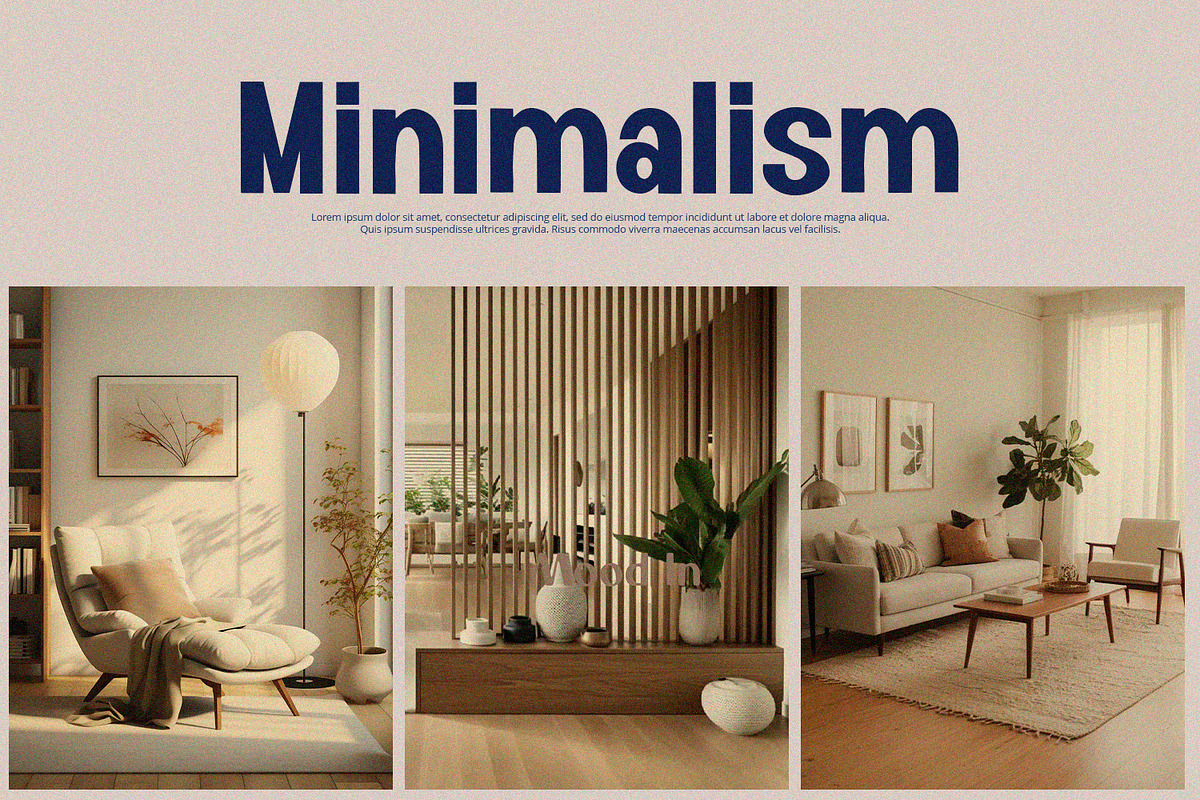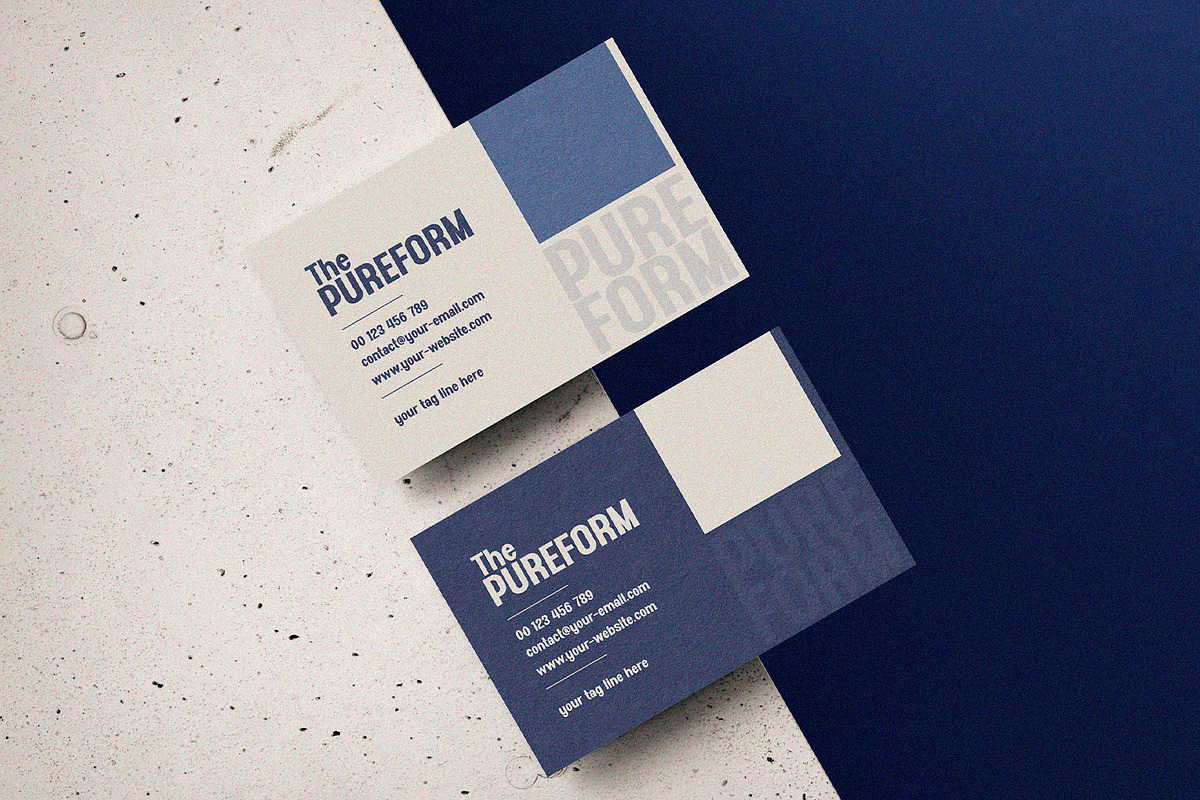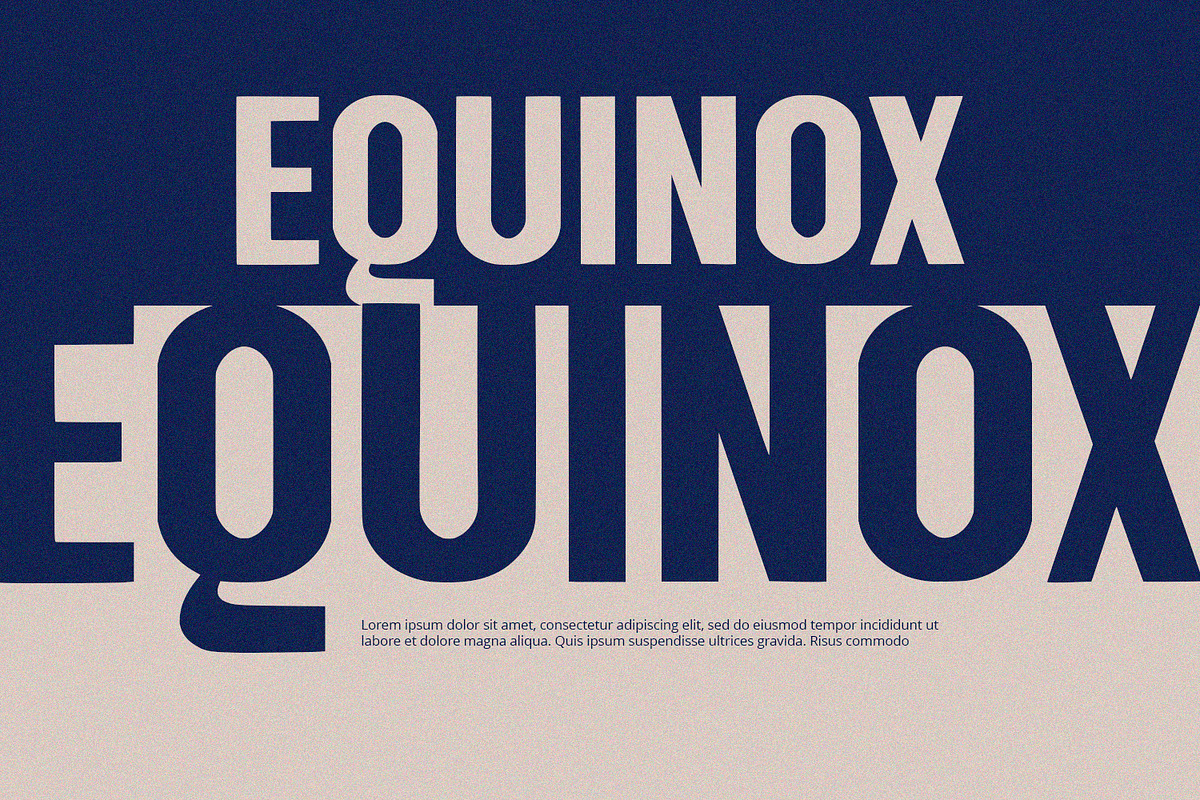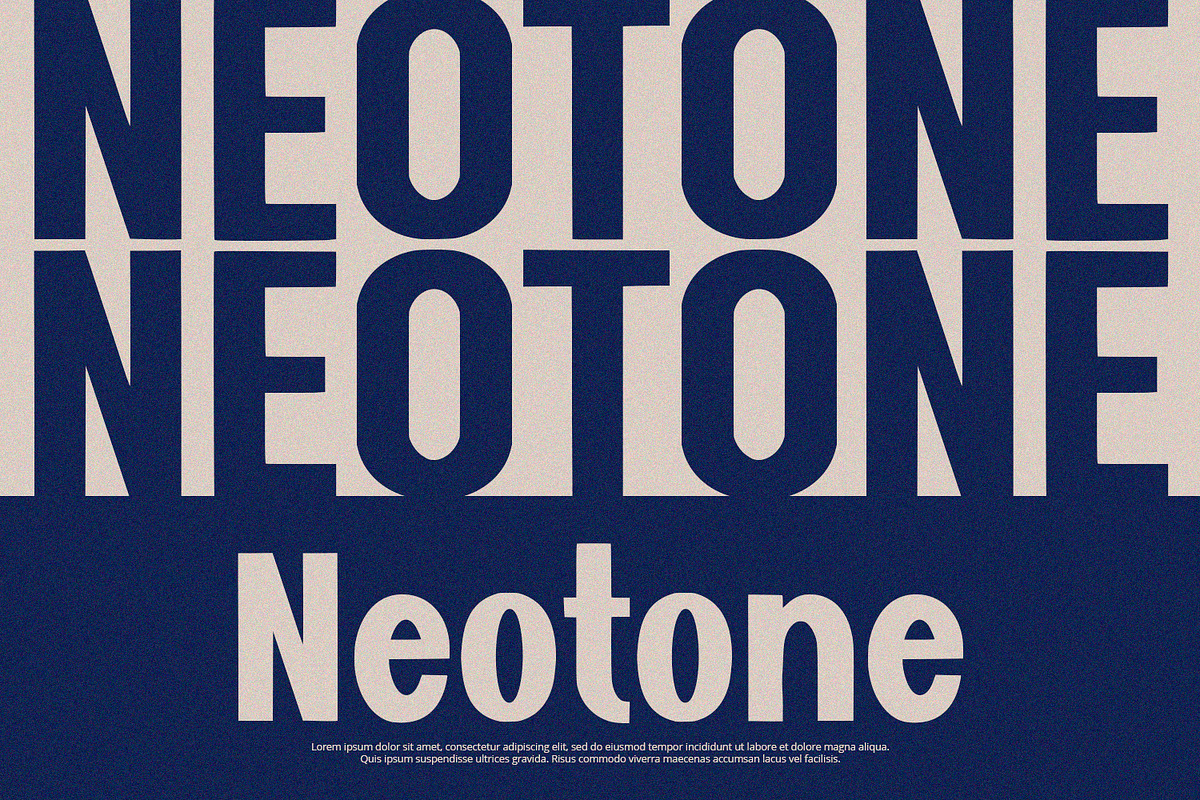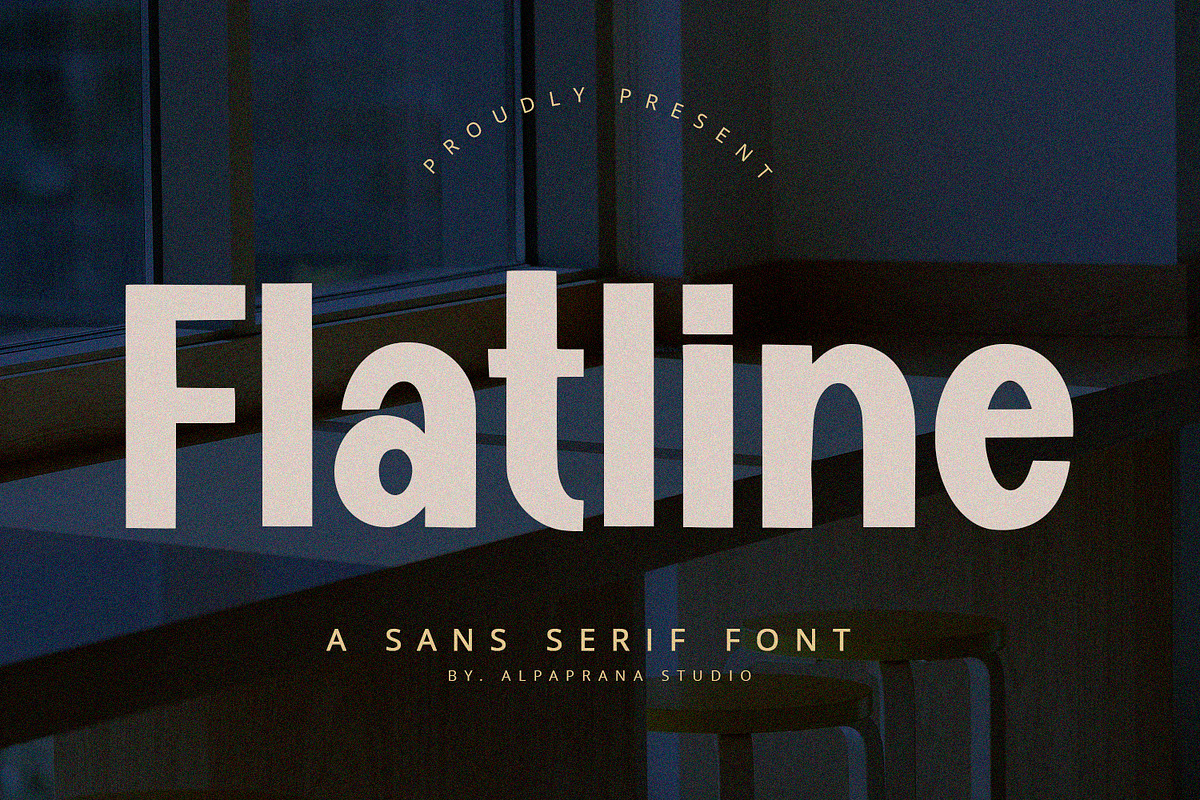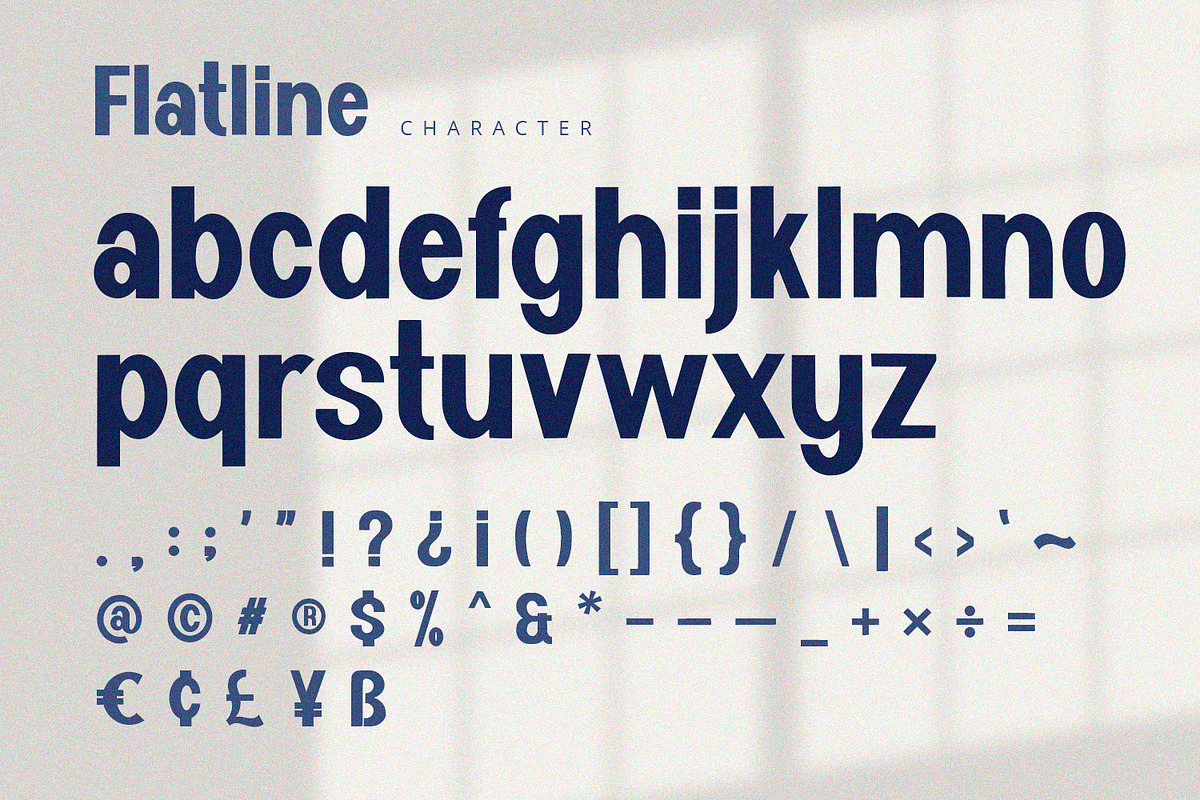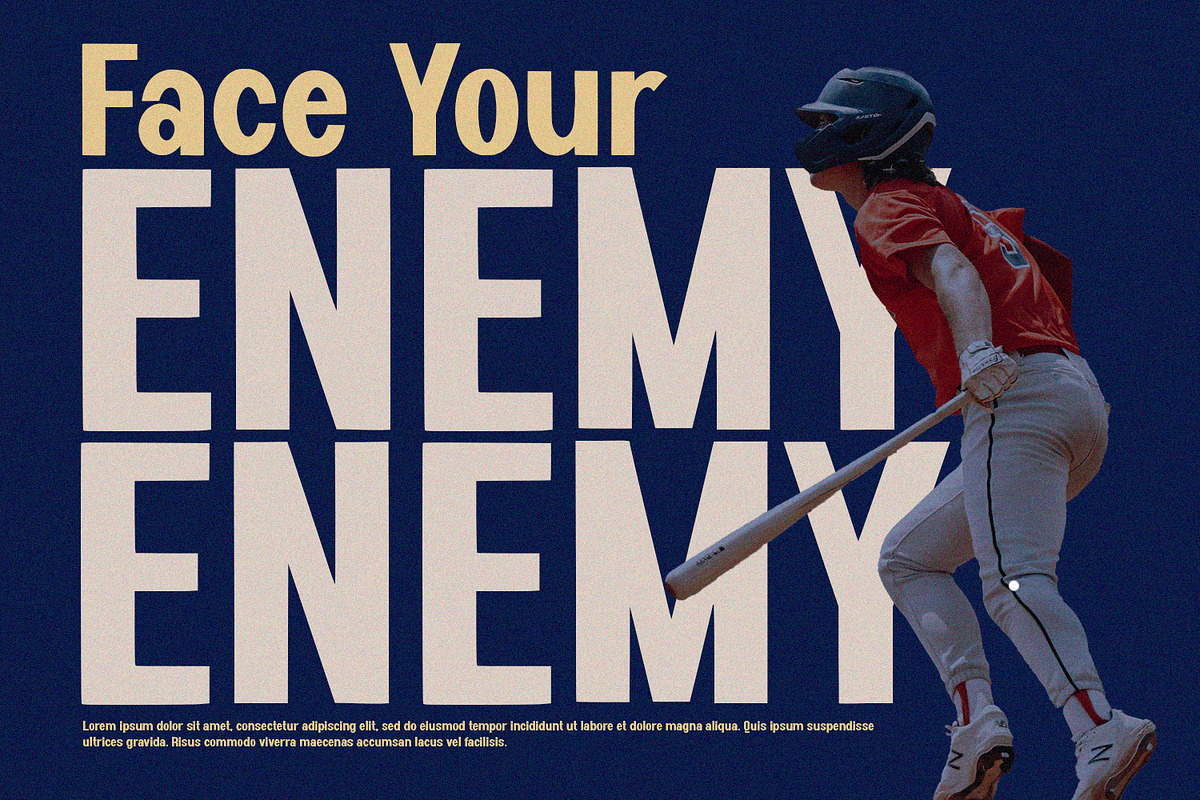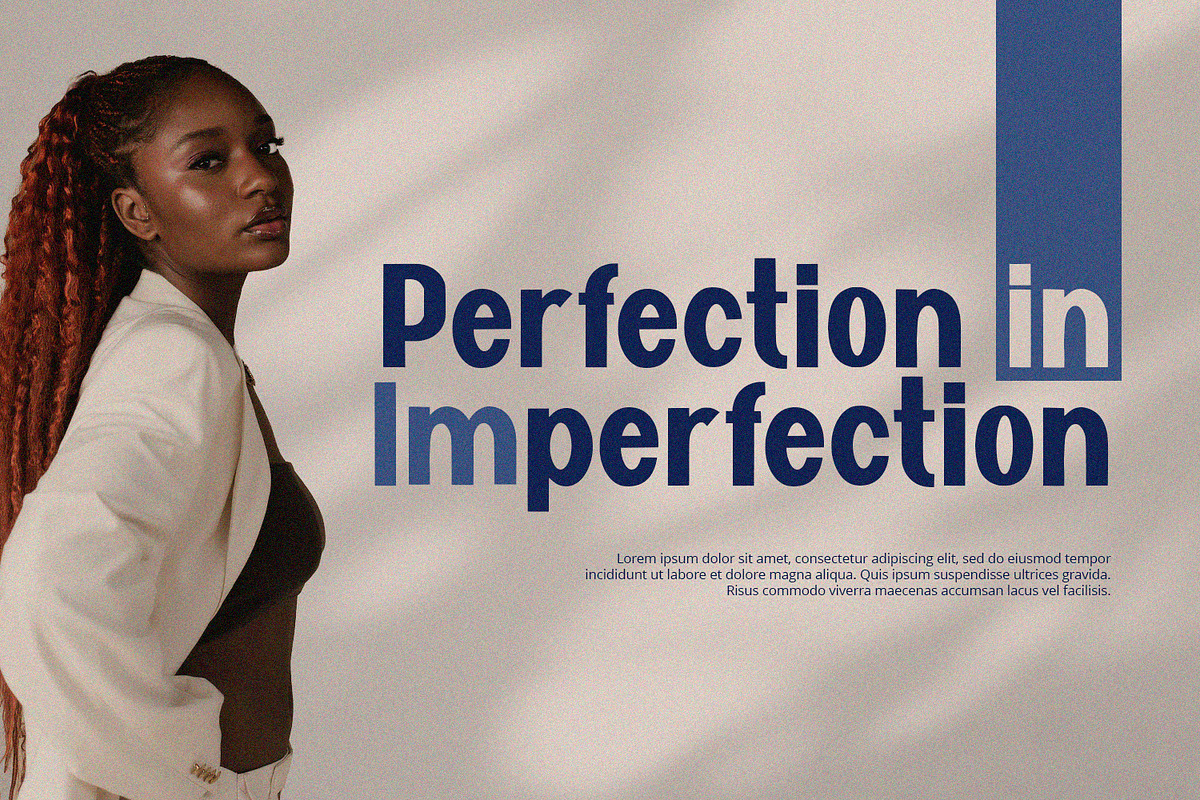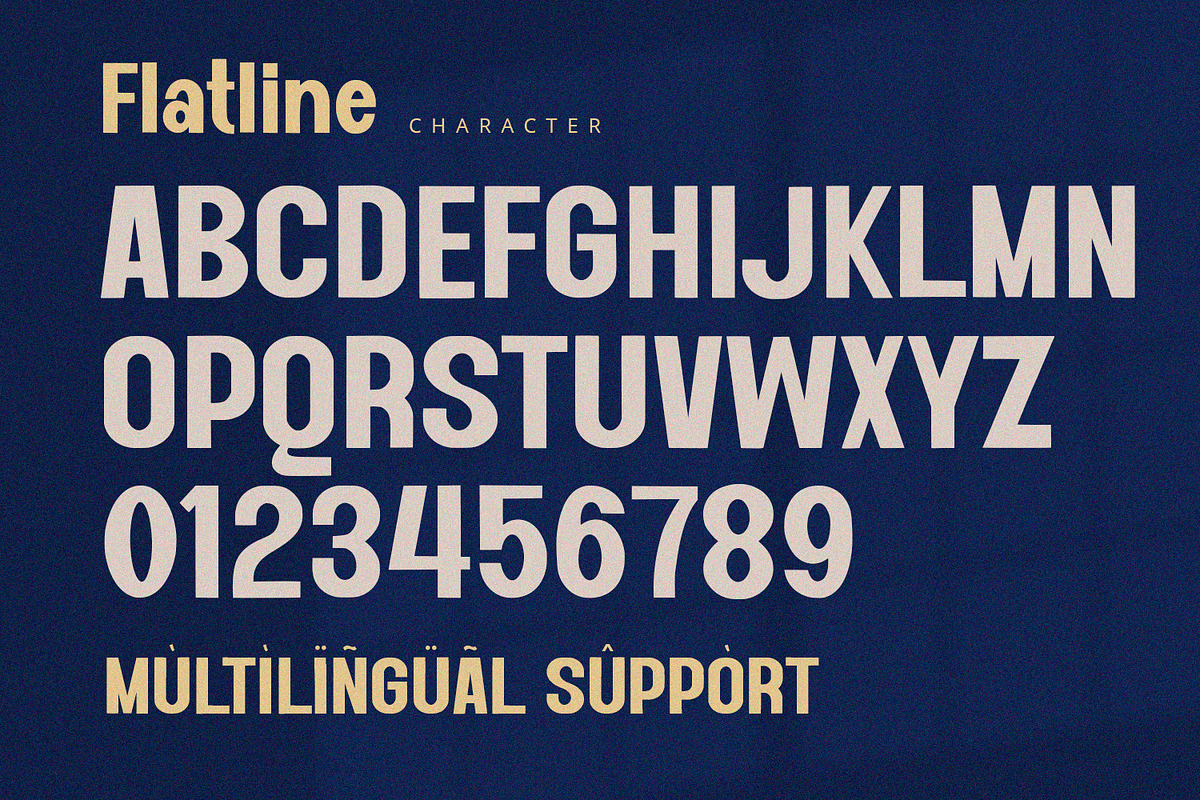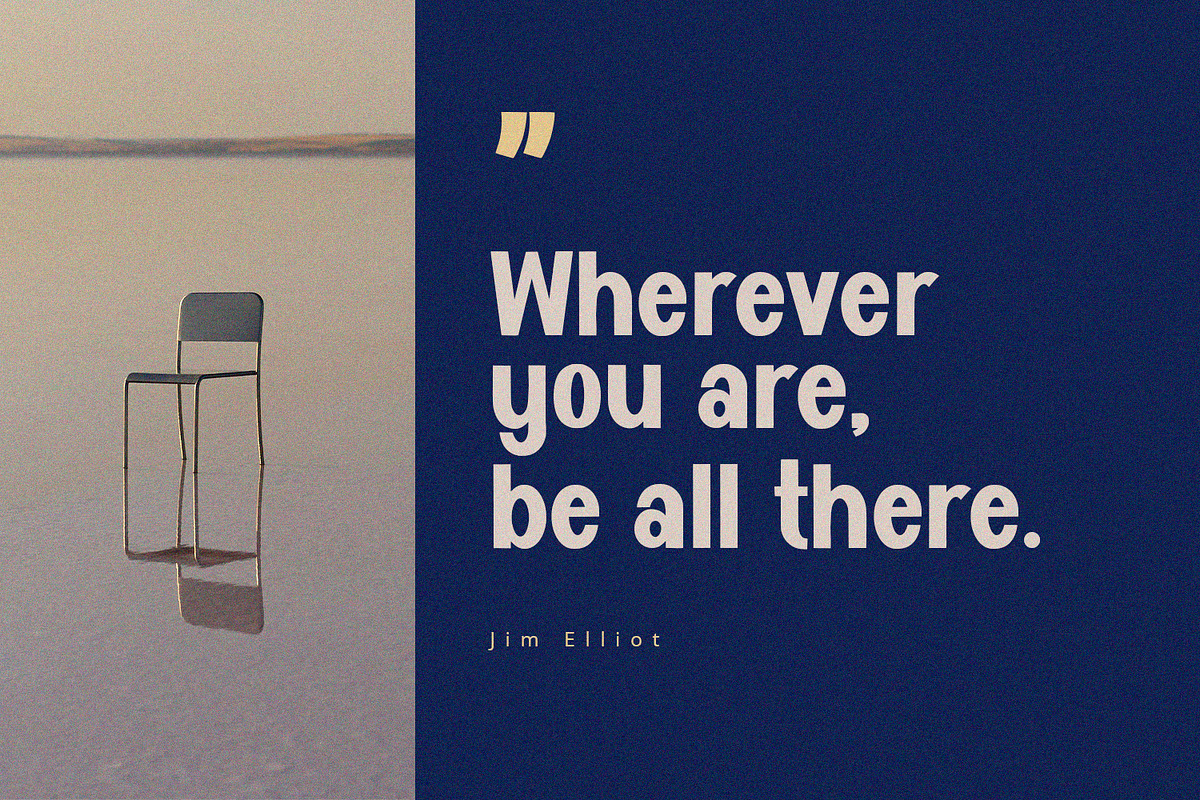
Flatline - Display Sans
Flatline is display sans serif font with bold and Modern feels. It will be perfectly used for Branding, Logo Design, Lettering, Logotype, Clothing, Poster, magazine, packaging, posters, shopping bags, t-shirts, book covers, photography, special events and other design project.